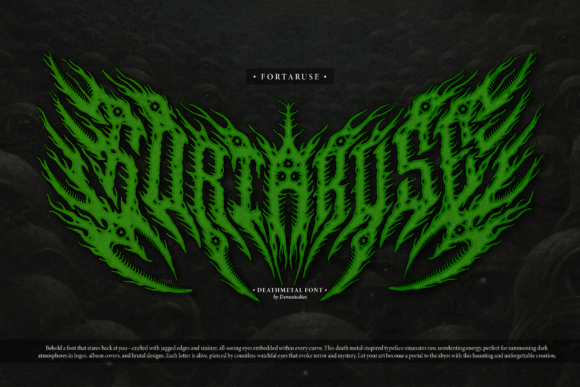
Unleashing the Fury: The Fortaruse Font – A Death Metal-Inspired Masterpiece
In the realm of typography, few fonts have managed to capture the raw intensity and dark mystique of the death metal genre as effectively as Fortaruse. This fiercely captivating font is a work of art that embodies the chaos and brutality of the genre, making it the ultimate choice for creating haunting, unforgettable visuals that embrace the macabre. In this article, we’ll delve into the world of Fortaruse, exploring its unique features, design inspiration, and the multitude of applications where it can be used to create striking, memorable designs.
The Birth of Fortaruse: A Font Forged in Intensity
Fortaruse is more than just a font – it’s an experience. Born from the depths of creativity and a passion for the extreme, Fortaruse is a typographic masterpiece that distills the essence of death metal into a visual representation. Each letter is meticulously crafted to exude an ominous energy, with jagged edges, intricate organic shapes, and sinister all-seeing eye details that seem to pierce through the very soul.
The design process behind Fortaruse was a labor of love, driven by a desire to create a font that would resonate with fans of the death metal genre. The creators of Fortaruse drew inspiration from the raw energy, aggression, and mystique of the genre, combining these elements with a keen eye for detail and a deep understanding of typographic design.
Design Features: The Anatomy of Fortaruse
So, what makes Fortaruse so unique? The answer lies in its design features, which are carefully crafted to evoke the dark, intense spirit of death metal. Some of the key features of Fortaruse include:
- Jagged Edges: Fortaruse’s jagged edges give it a rough, unpolished feel that’s reminiscent of the raw energy and aggression of death metal.
- Intricate Organic Shapes: The font’s intricate organic shapes add a level of complexity and depth, making each letter a work of art in its own right.
- Sinister All-Seeing Eye Details: The sinister all-seeing eye details are a nod to the mystique and symbolism often found in death metal, adding an air of mystery and intrigue to the font.
These design features combine to create a font that’s both visually striking and deeply rooted in the aesthetic of death metal. Whether you’re designing a metal band logo, album cover, or horror poster, Fortaruse provides the perfect foundation for creating haunting, unforgettable visuals.
Applications: Where to Use Fortaruse
Fortaruse is a versatile font that can be used in a variety of applications, from metal band logos and album covers to horror posters and underground event designs. Here are just a few examples of where Fortaruse can be used to create striking, memorable designs:
- Metal Band Logos: Fortaruse is perfect for creating metal band logos that exude intensity, energy, and a sense of rebellion.
- Album Covers: The font’s dark, ominous energy makes it an ideal choice for album covers, particularly for death metal and extreme music releases.
- Horror Posters: Fortaruse’s sinister, unsettling vibe makes it a natural fit for horror posters and movie promotions.
- Underground Event Designs: The font’s edgy, avant-garde aesthetic makes it perfect for promoting underground events, such as metal festivals and club nights.
Wherever you need to create a design that packs a punch, Fortaruse is the ultimate choice. Its unique blend of intensity, energy, and dark mystique makes it a font that’s sure to leave a lasting impression.
The Power of Typography: Why Fortaruse Stands Out
In the world of design, typography plays a crucial role in communicating a message, evoking an emotional response, and creating a lasting impression. Fortaruse is a font that’s specifically designed to tap into the raw energy and emotion of the death metal genre, making it a powerful tool for designers and artists.
So, what sets Fortaruse apart from other fonts? The answer lies in its ability to capture the essence of death metal in a way that’s both authentic and visually striking. Whether you’re a fan of the genre or simply looking for a font that makes a statement, Fortaruse is an exceptional choice.
In a sea of generic, bland fonts, Fortaruse stands out as a beacon of creativity and originality. Its unique design features, combined with its versatility and emotional resonance, make it a font that’s sure to inspire and empower designers and artists.
In conclusion, Fortaruse is a font that’s as fierce as it is captivating. Born from the depths of creativity and a passion for the extreme, Fortaruse is a typographic masterpiece that embodies the chaos and brutality of the death metal genre. With its jagged edges, intricate organic shapes, and sinister all-seeing eye details, Fortaruse is the ultimate choice for creating haunting, unforgettable visuals that embrace the macabre.
Whether you’re designing a metal band logo, album cover, horror poster, or underground event promotion, Fortaruse provides the perfect foundation for creating striking, memorable designs. So, unleash the fury of Fortaruse and tap into the raw energy and emotion of the death metal genre. Your designs will never be the same again.